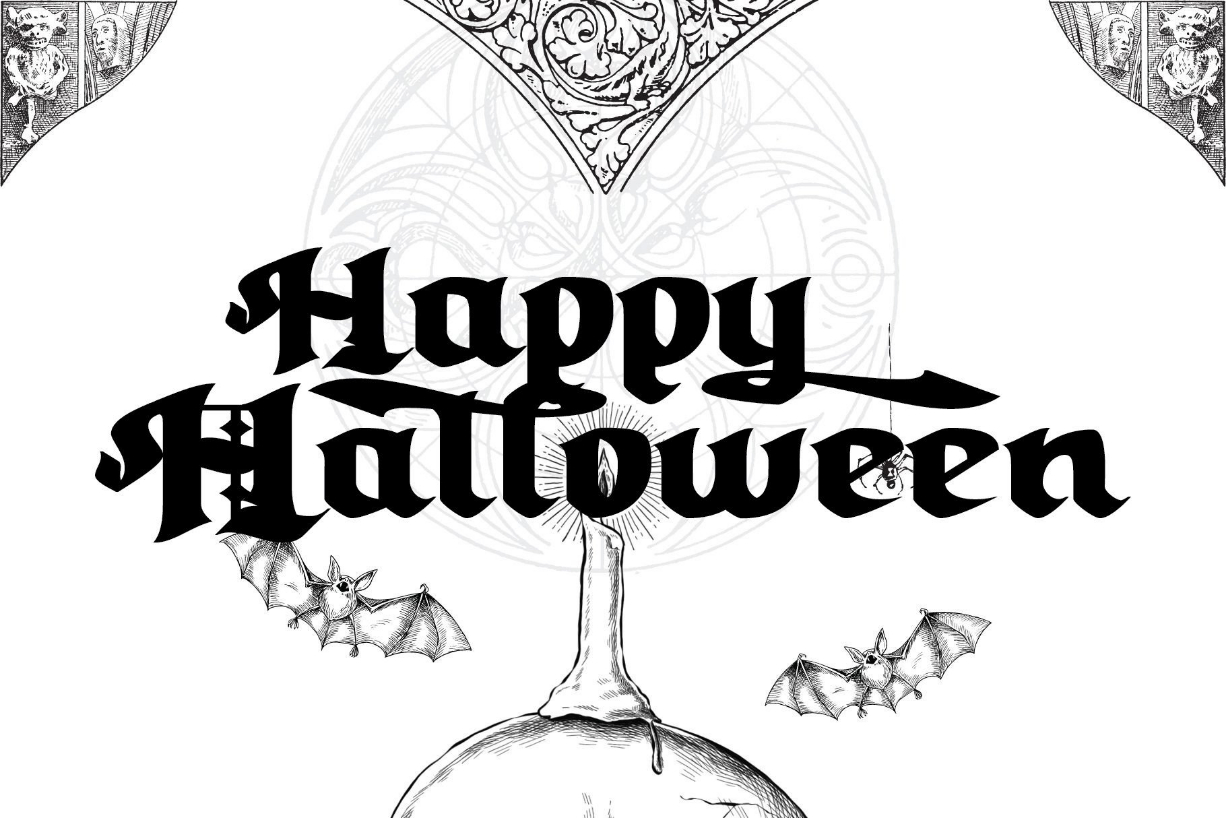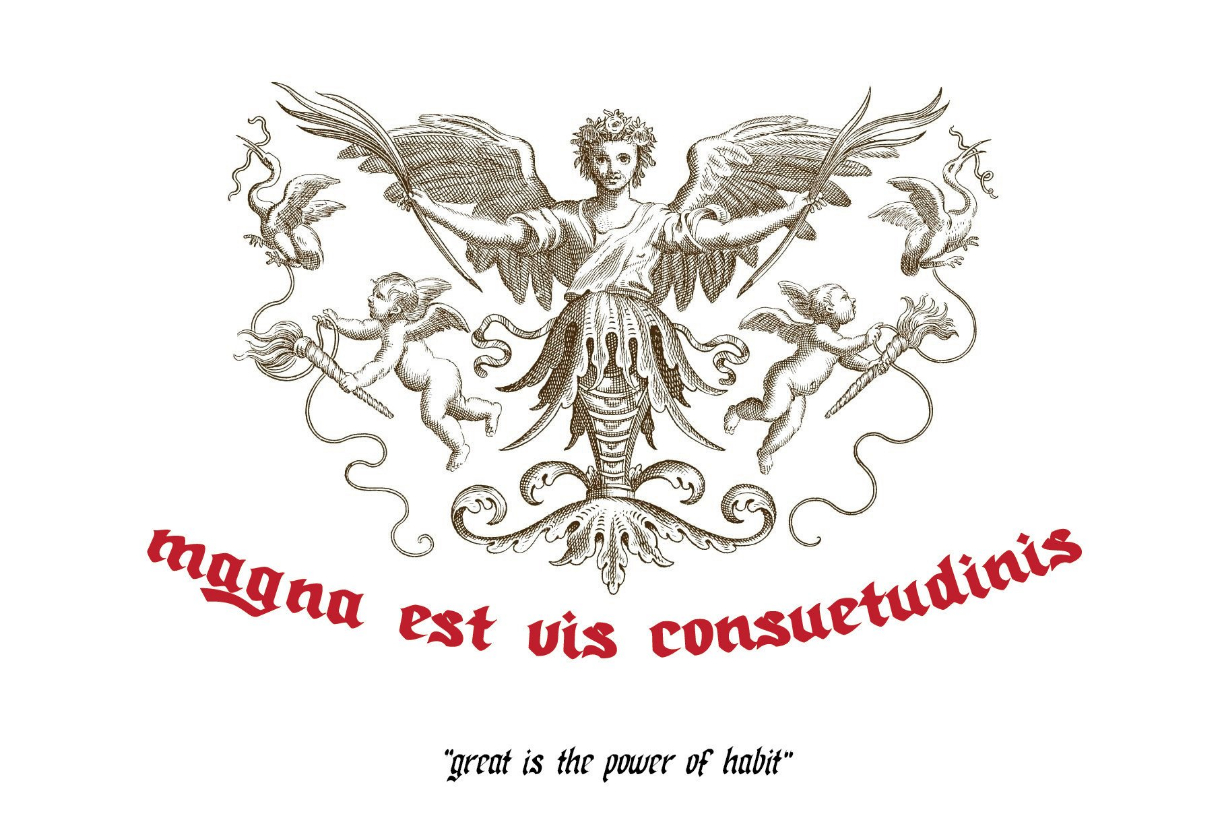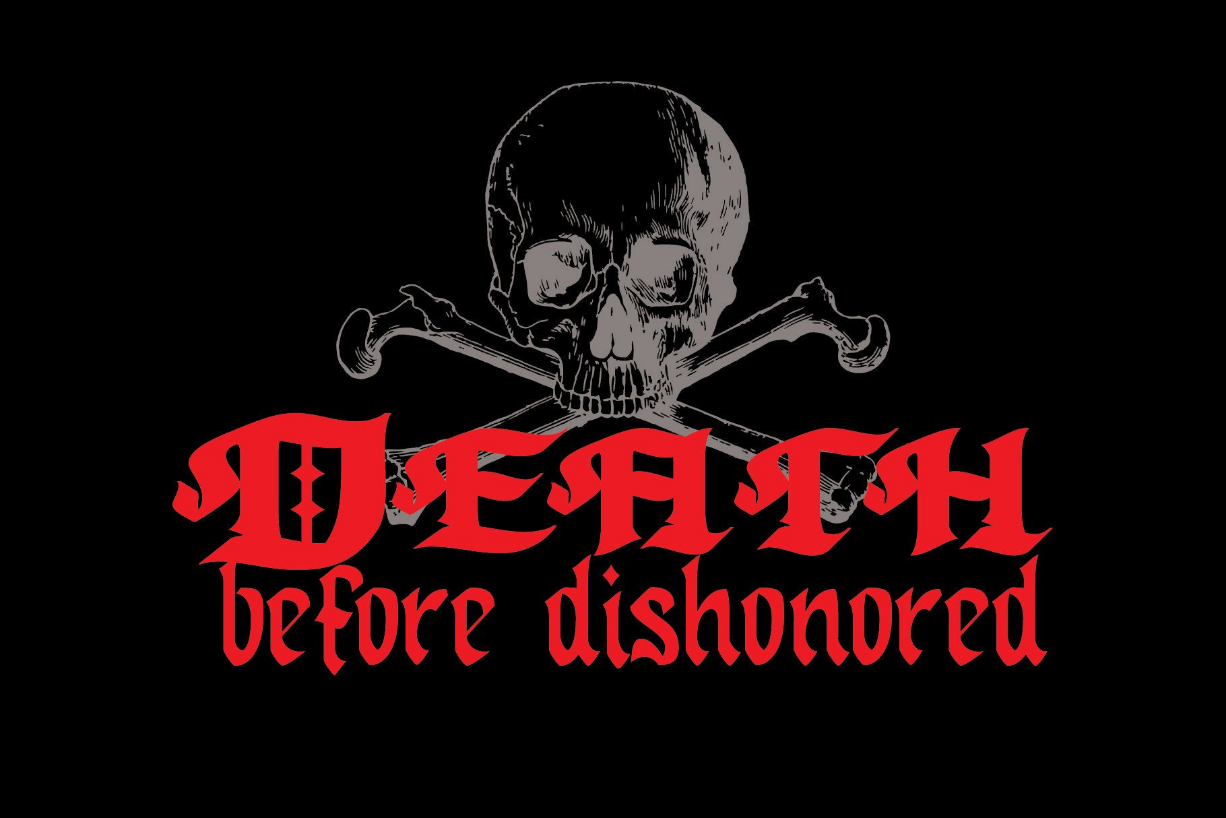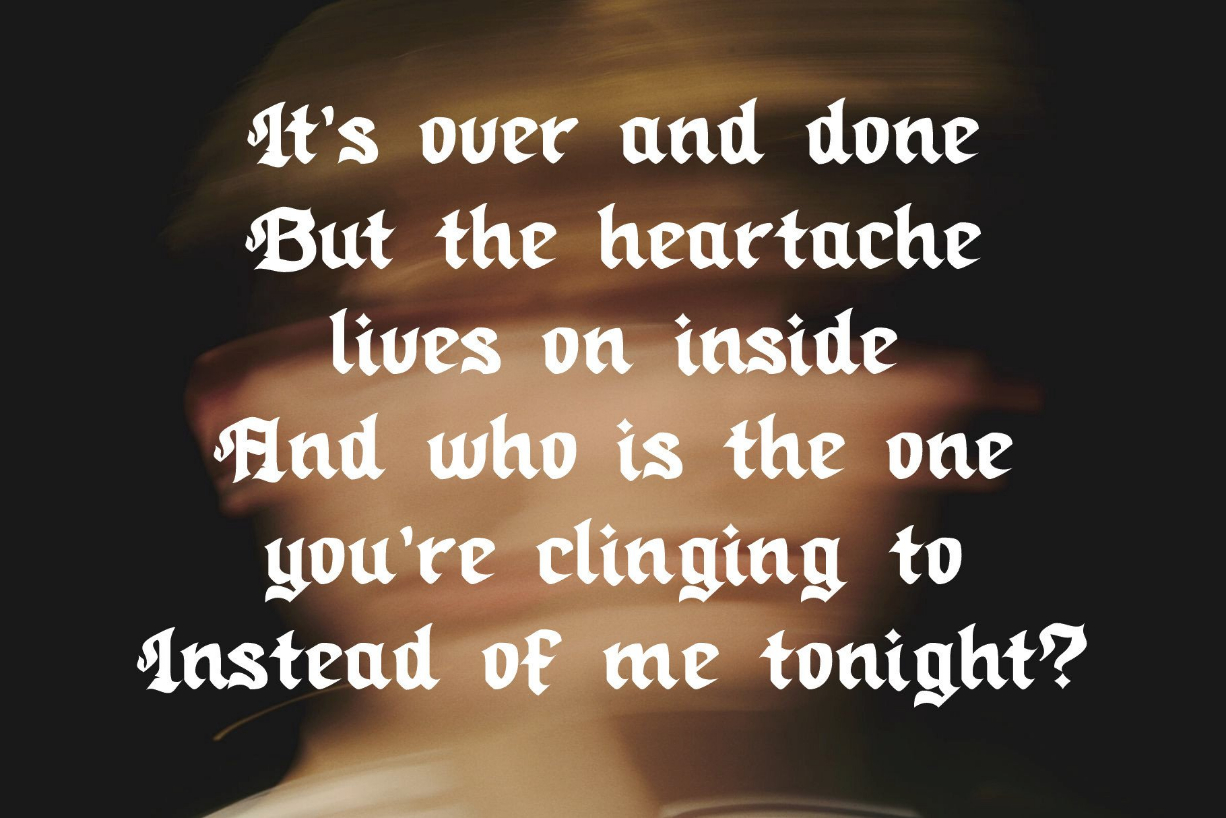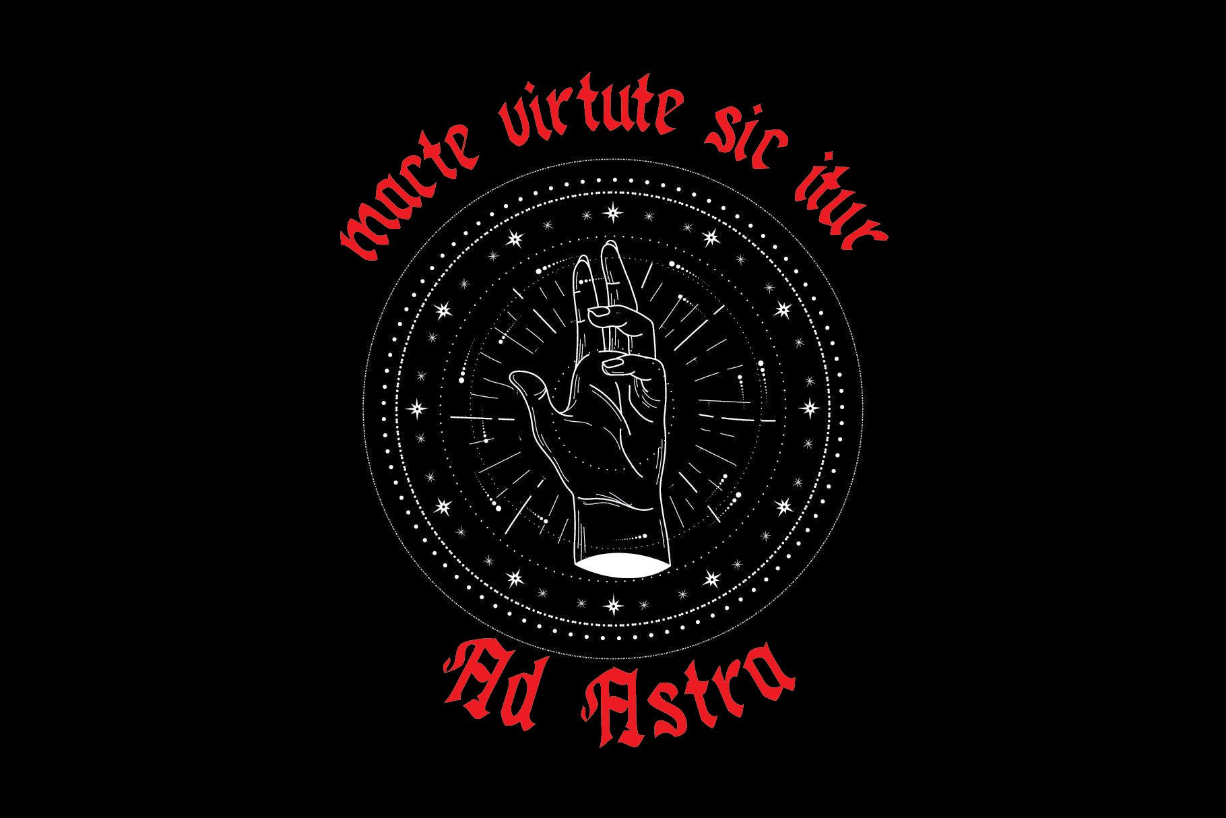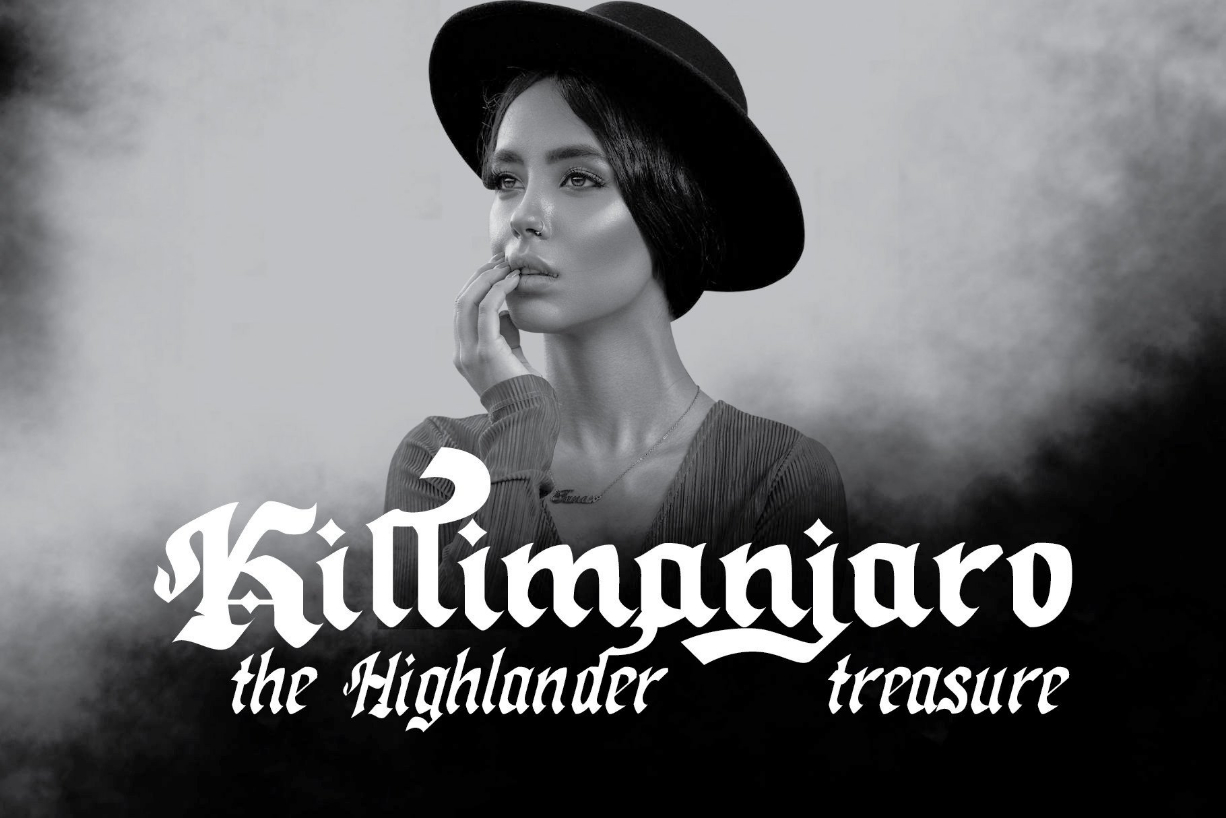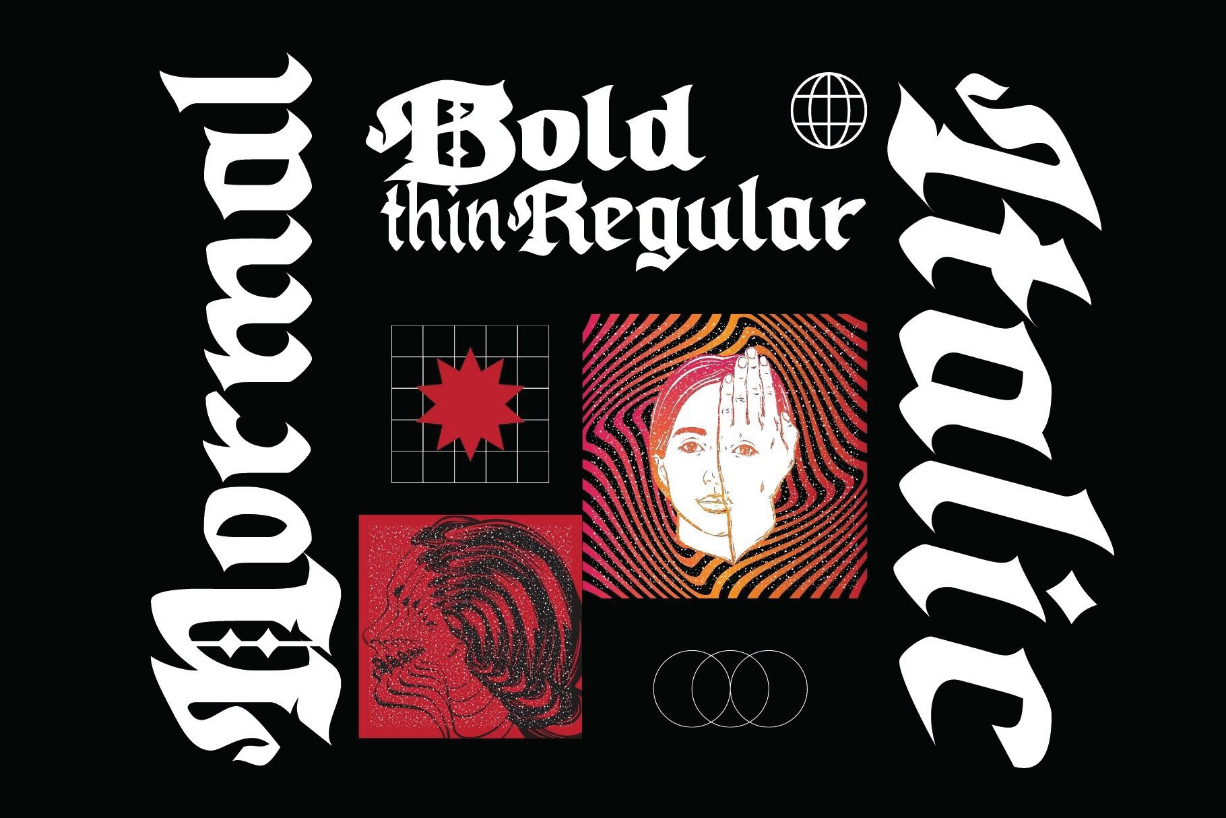
Callimathy Font
About Callimathy Font
Callimathy is a splendid blackletter font that will impress with its stylish features. Use it for product packaging, branding, or other projects that need bold and daring typography!